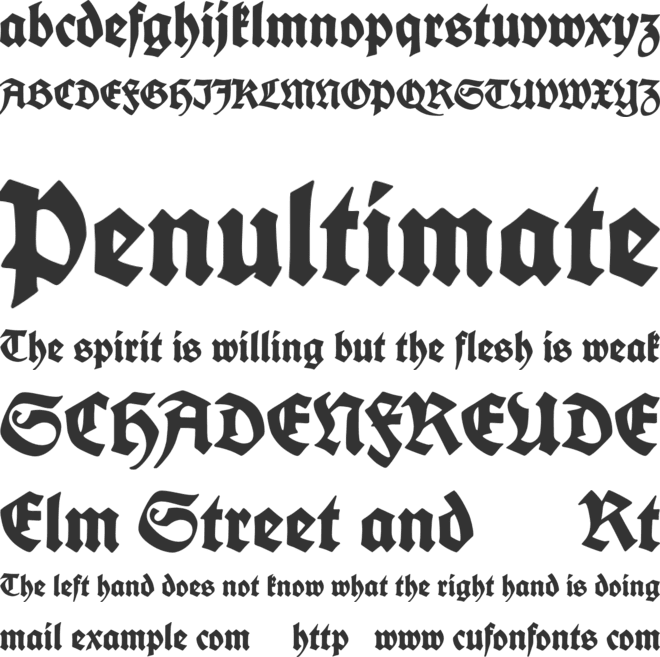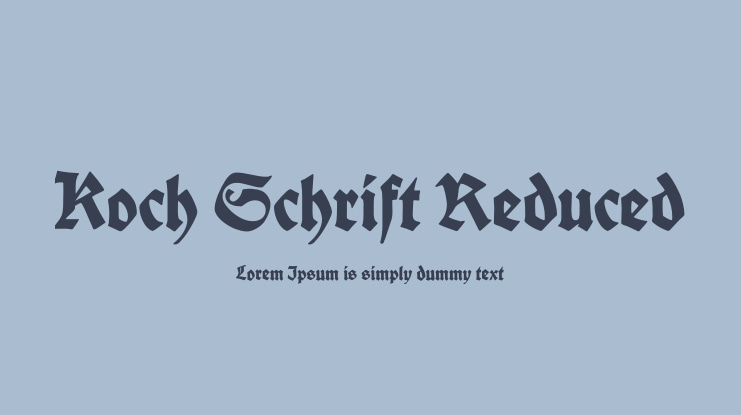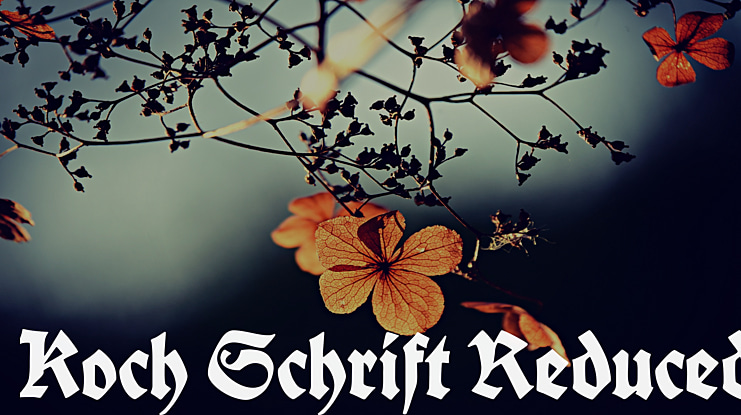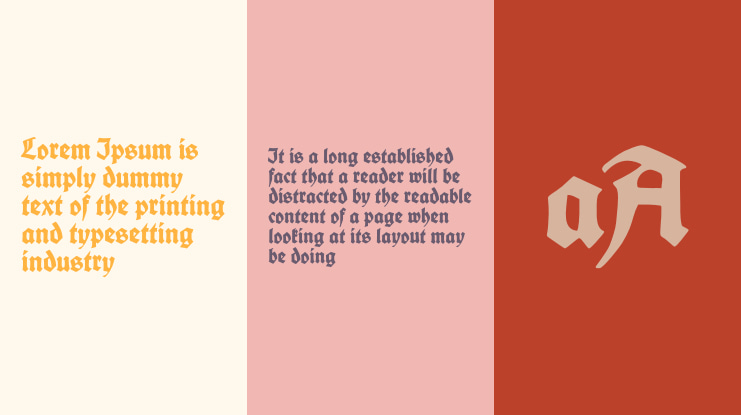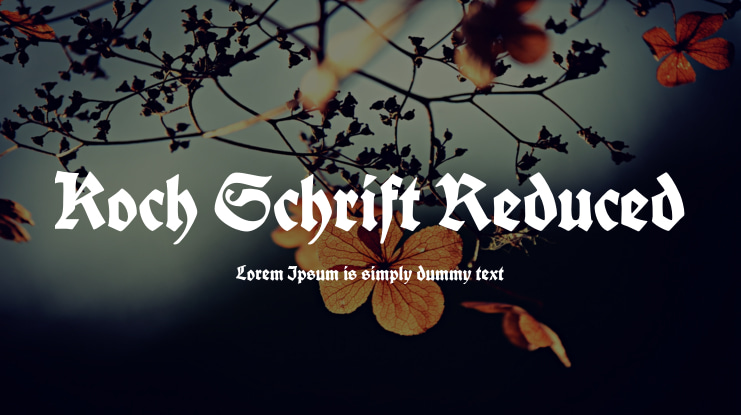
Koch-Schrift Reduced Font
Ingo Zimmermann
Heavy blackletter;
Rudolf Kochs first type from 1909
On an old page full of type specimen from the 1930s, the type is described as Schwabacher (used by the Deutsche Reichsbahn [German Imperial Railway]). As a matter of fact, it is the first print of the Offenbach script master Rudolf Koch, who came out with this typeface in 1909.
At that time, it was given the name Neudeutsch (New German). Later, it became very popular under the name Koch-Schrift, and was at times the official typeface of the Deutsche Reichsbahn (German Imperial Railway).